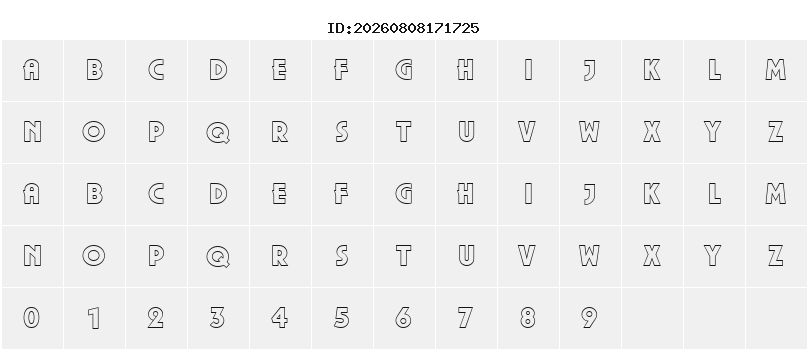
About PlazaOutPUlt.ttf
PlazaOutPUlt.ttf is a modern, elegant sans-serif font designed for ultimate readability and visual harmony. Perfect for branding, headlines, web design, and print materials.